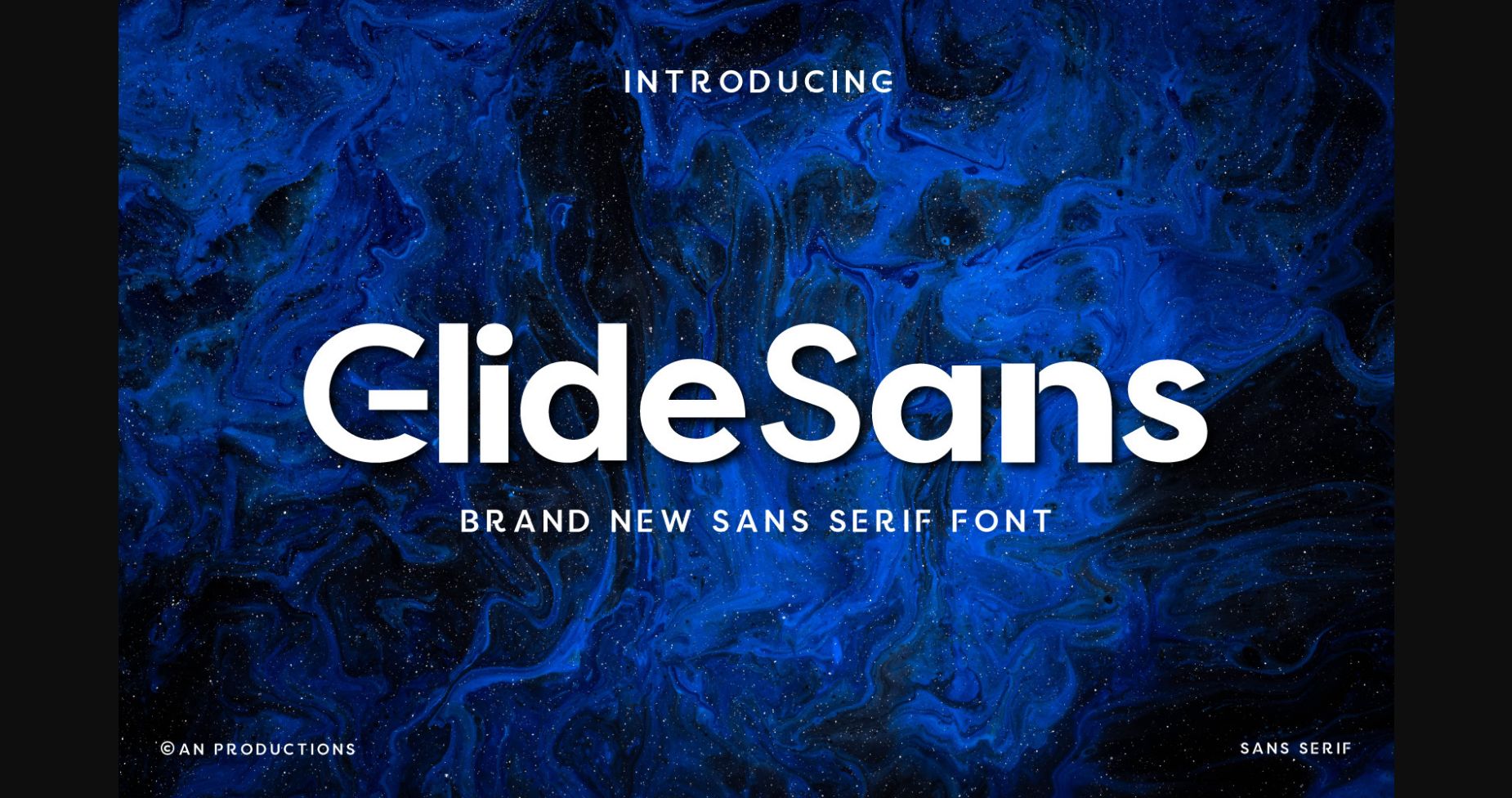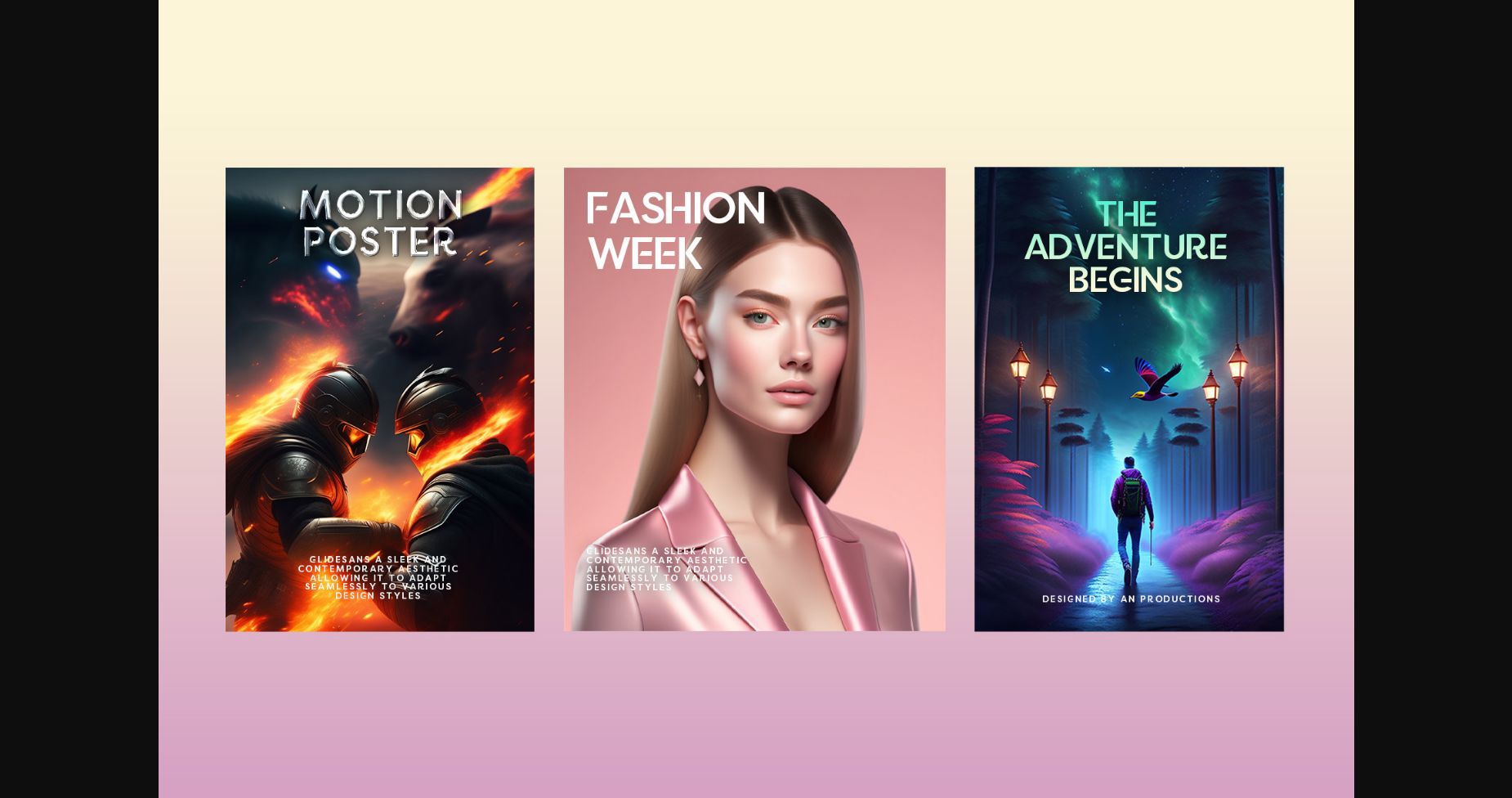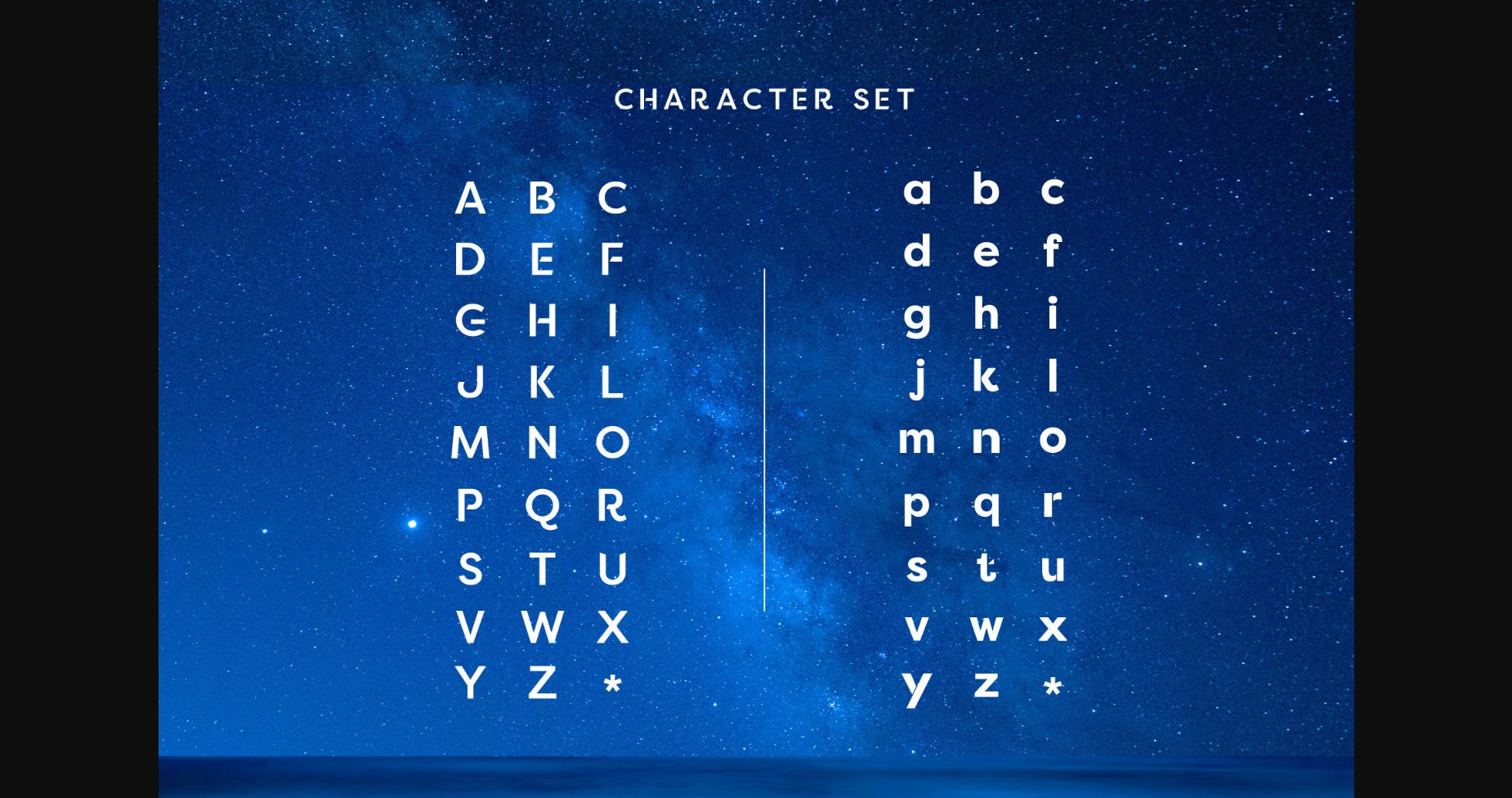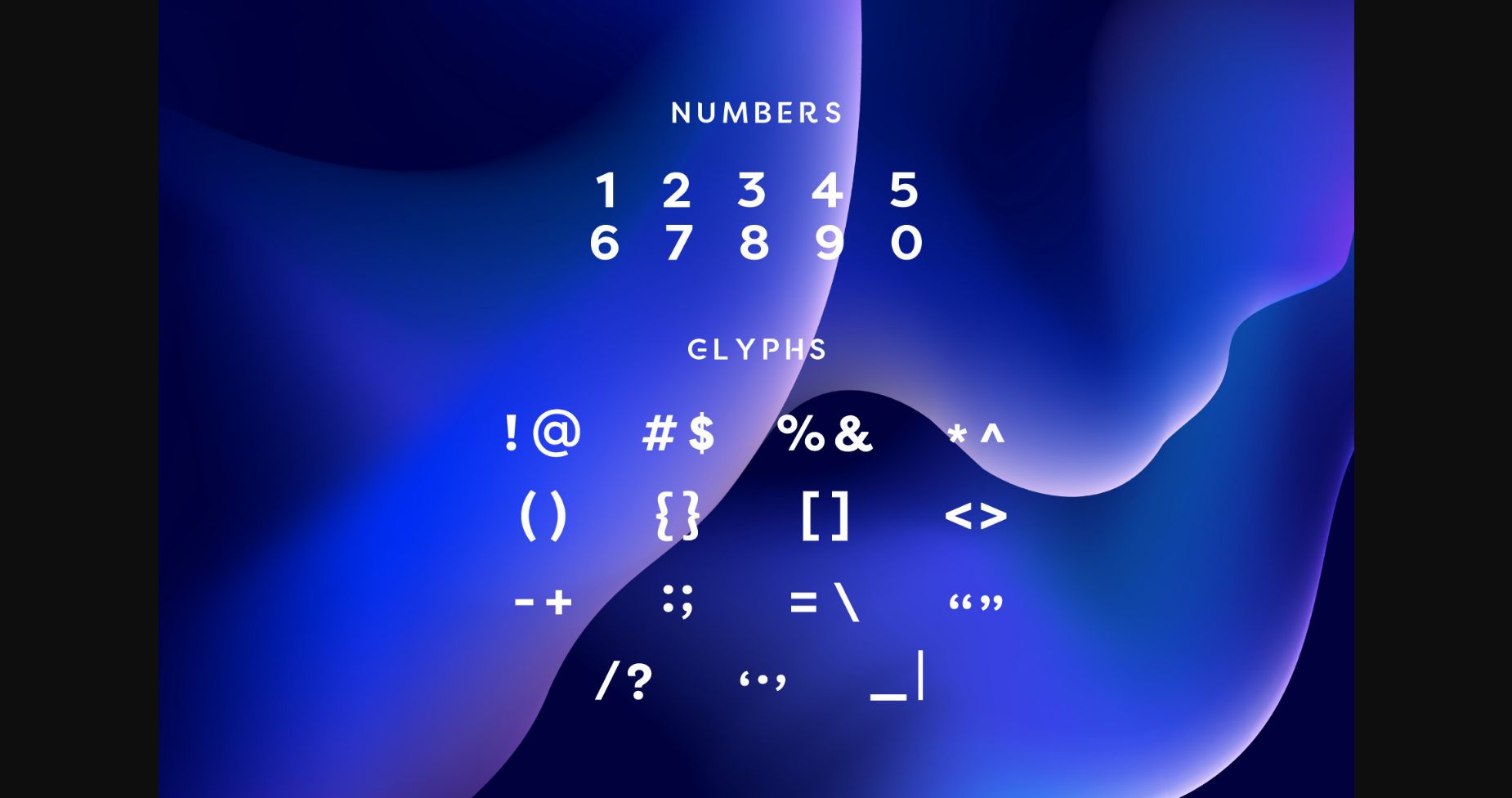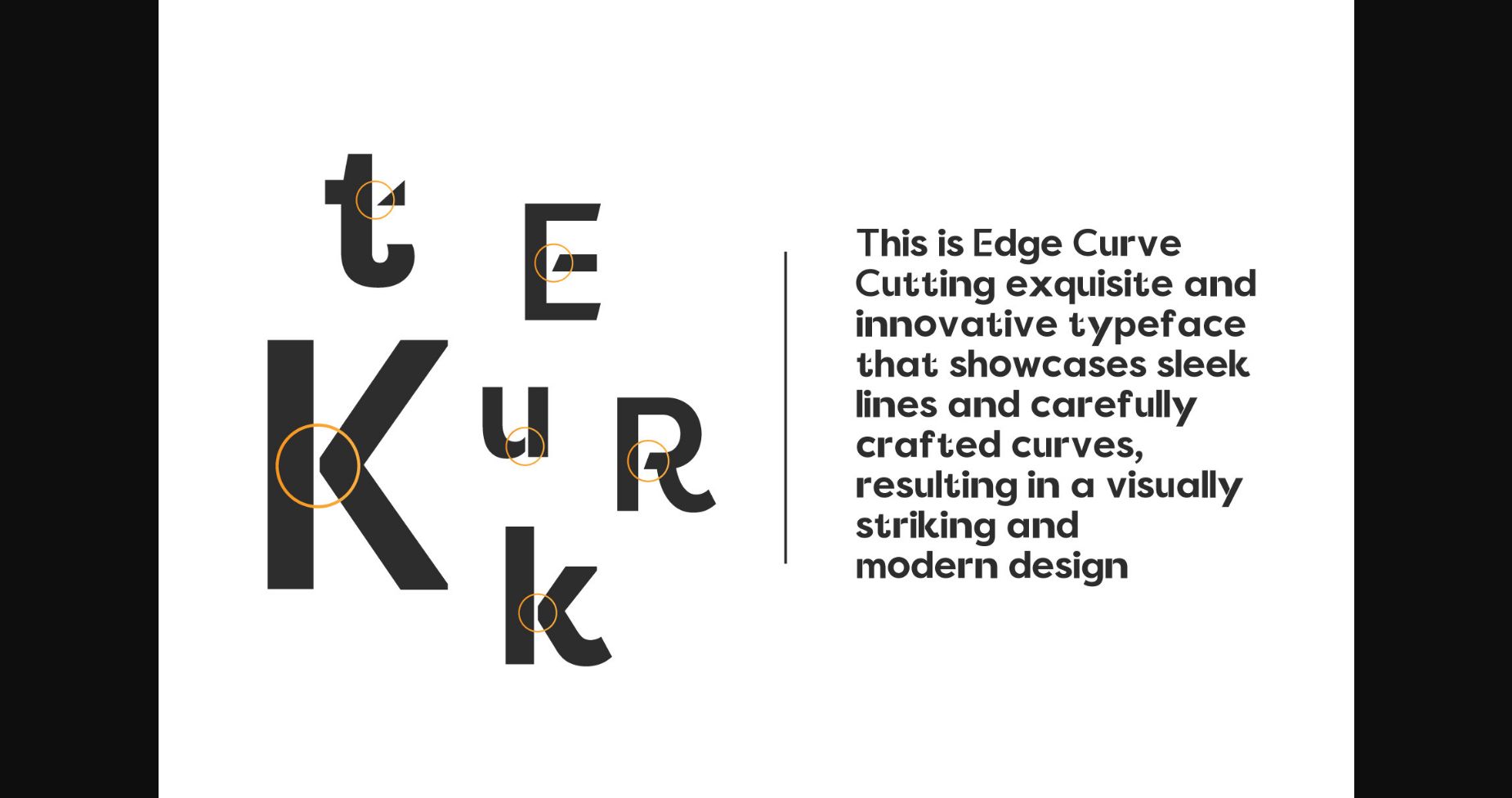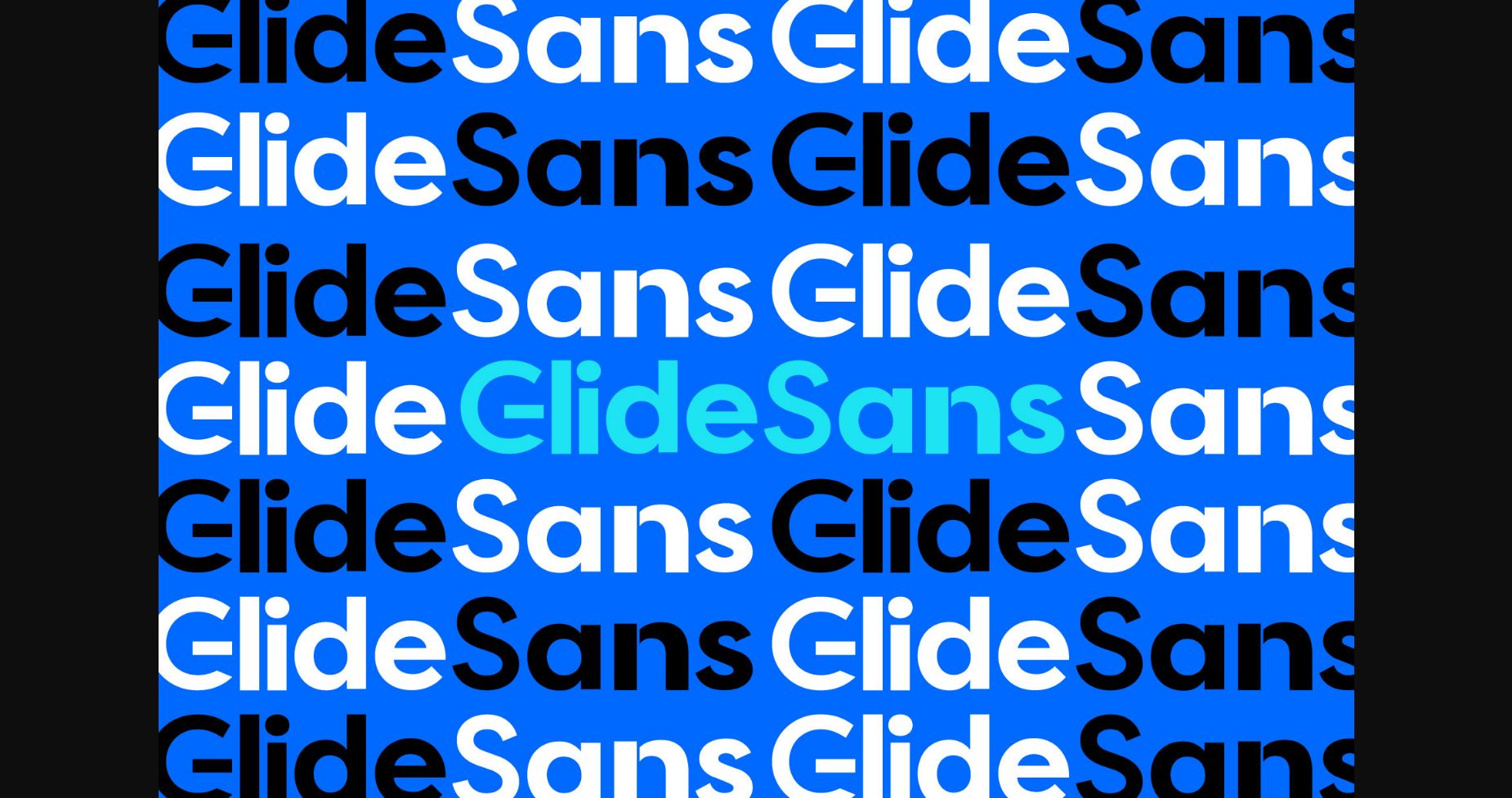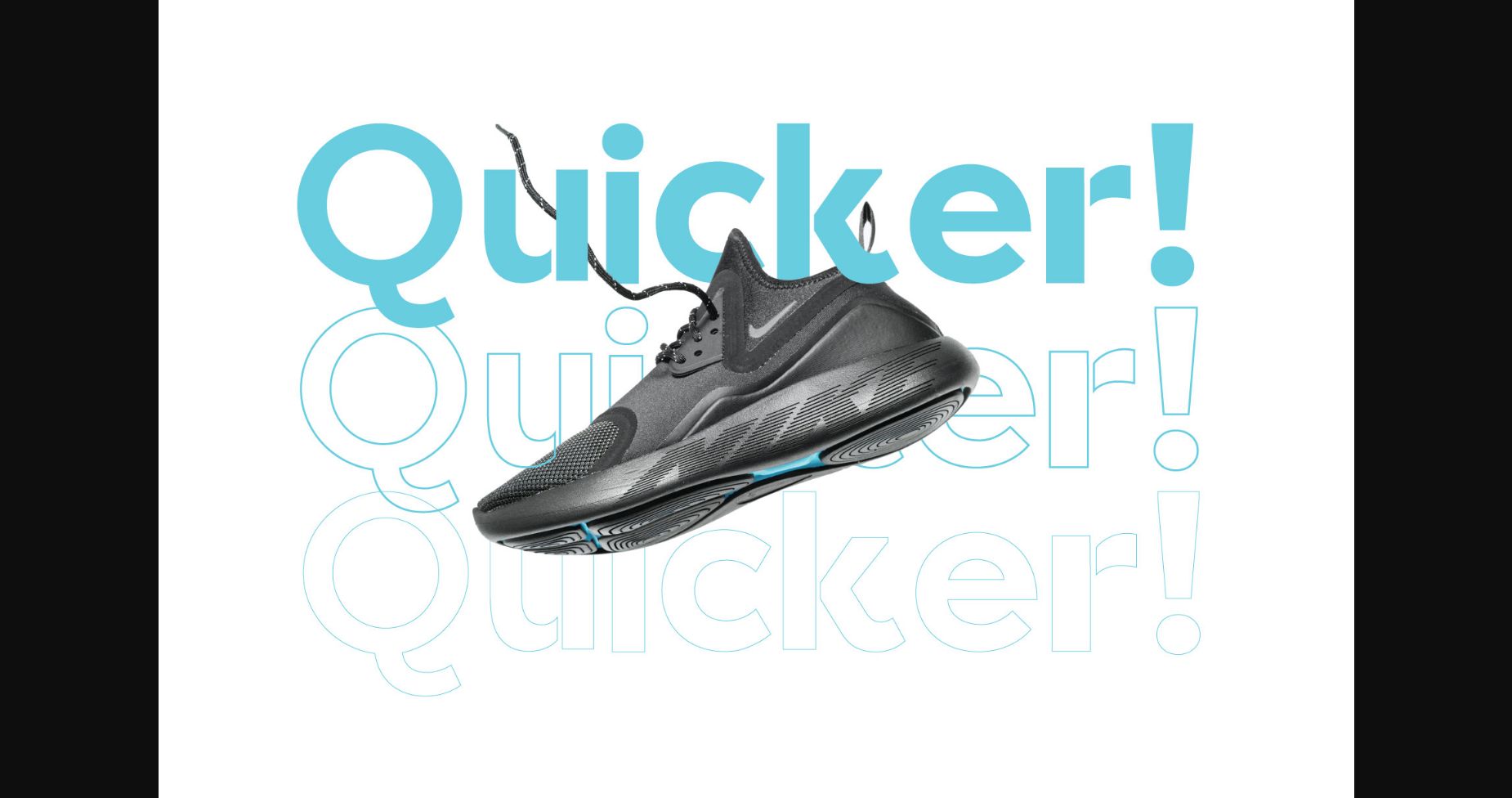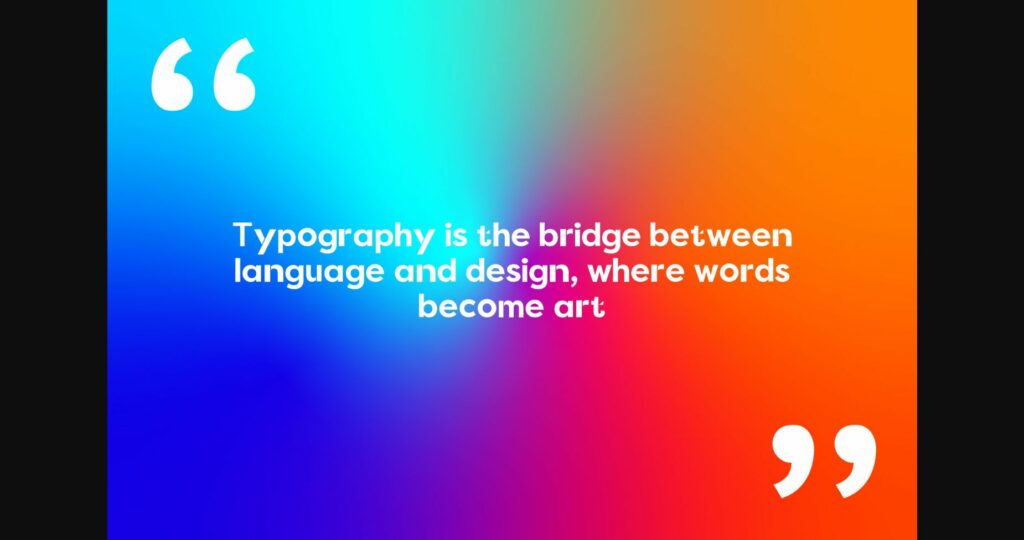
Glide Sans Font
About Glide Sans Font
GlideSans is a bold and powerful sans-serif typeface designed to make a lasting impression. With its clean lines and distinct geometric shapes, this font exudes strength and modernity. Perfect for headlines, logos, posters, and branding materials, GlideSans demands attention and delivers a strong visual impact.
The bold weight of GlideSans ensures excellent legibility, even at small sizes, making it ideal for both print and digital applications. The characters are carefully crafted with consistent stroke widths, creating a balanced and harmonious look. The absence of serifs gives GlideSans a sleek and contemporary aesthetic, allowing it to adapt seamlessly to various design styles.
Whether you’re designing a cutting-edge tech startup logo or a dynamic sports event poster, GlideSans will elevate your project with its bold and confident presence. It brings an air of professionalism and assertiveness while maintaining a sense of approachability and clarity.